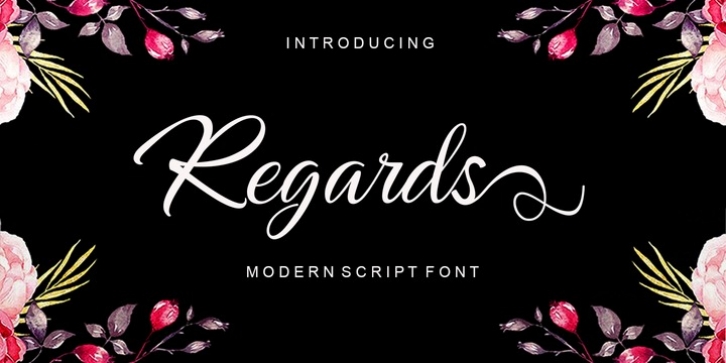
Regards Script is a new modern script font with an irregular baseline. Trendy and feminine style. Regards looks lovely on wedding invitations, thank you cards, quotes, greeting cards, logos, business cards and more. Perfect for using in ink or watercolour. Including initial and terminal letters, alternates and multiple language support.